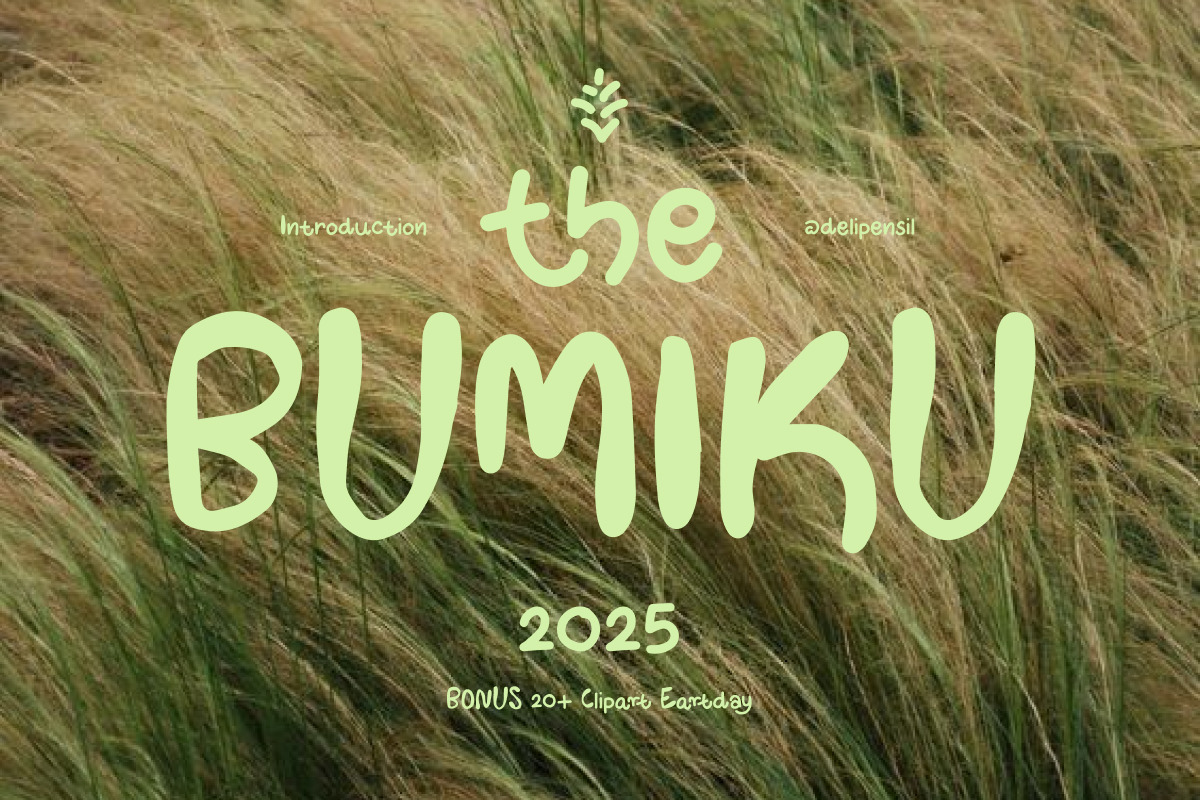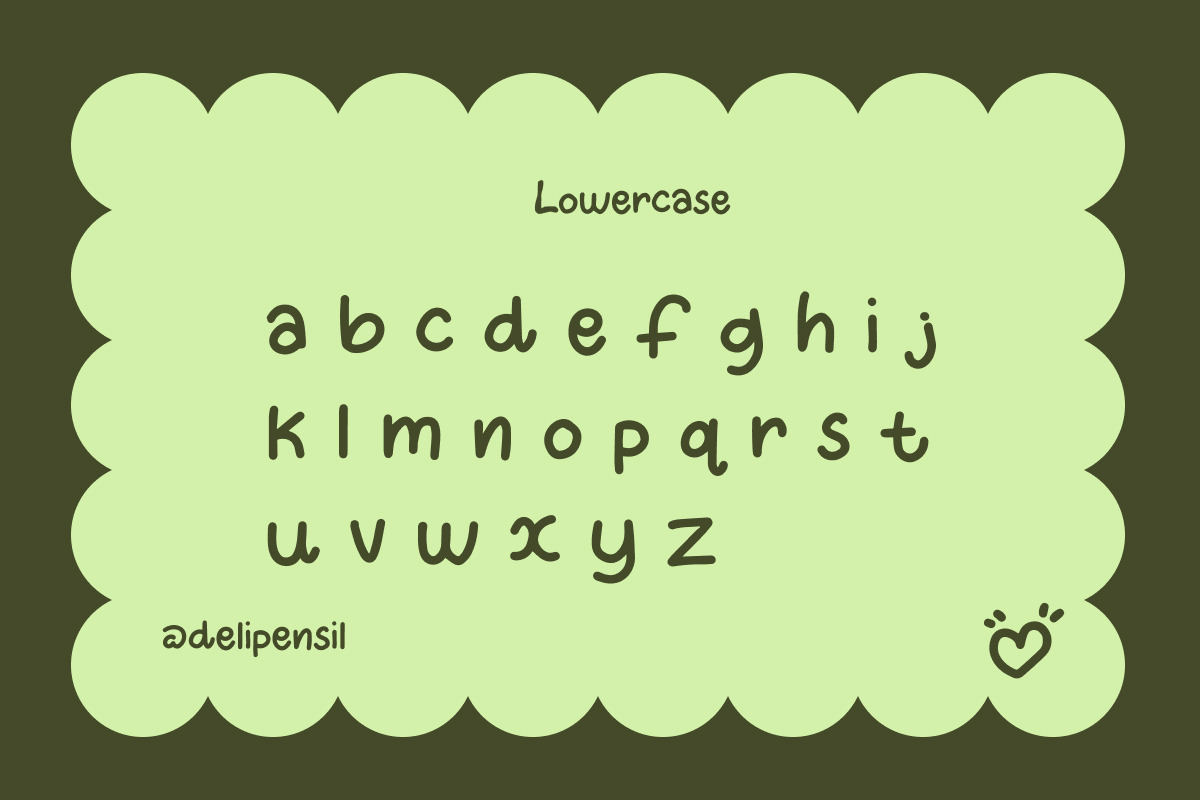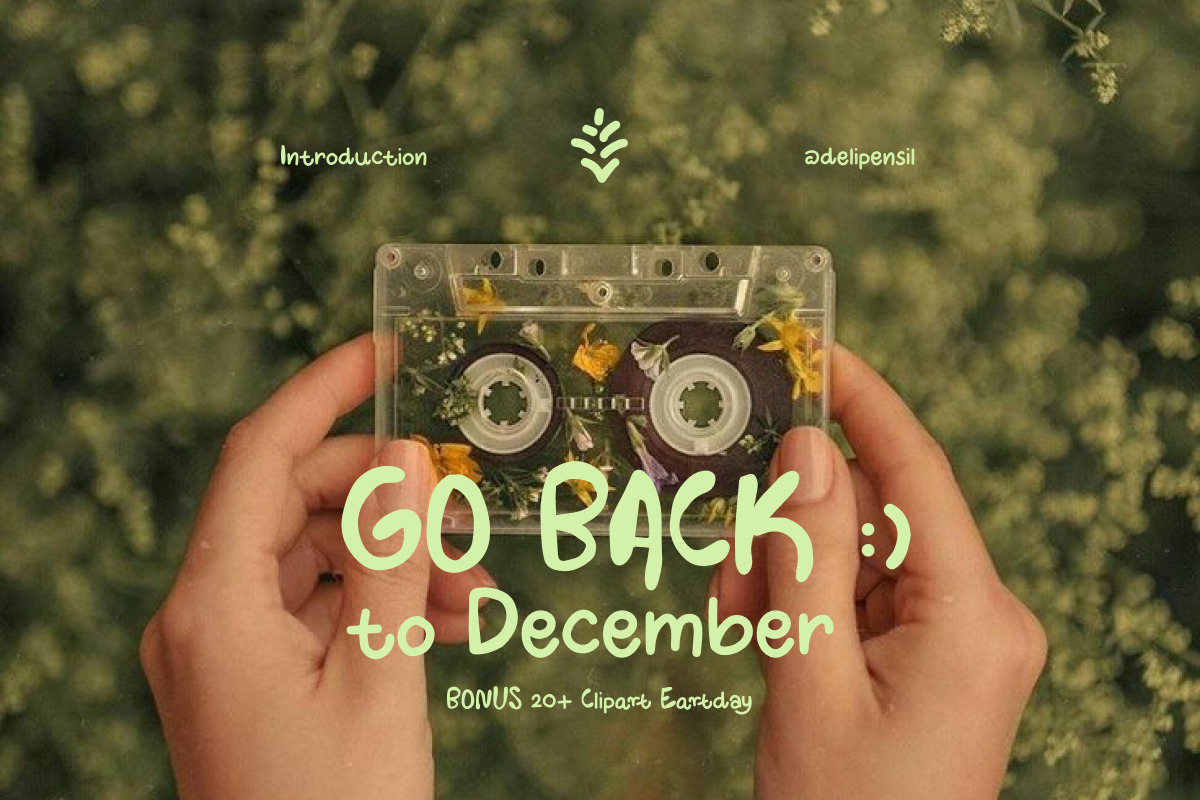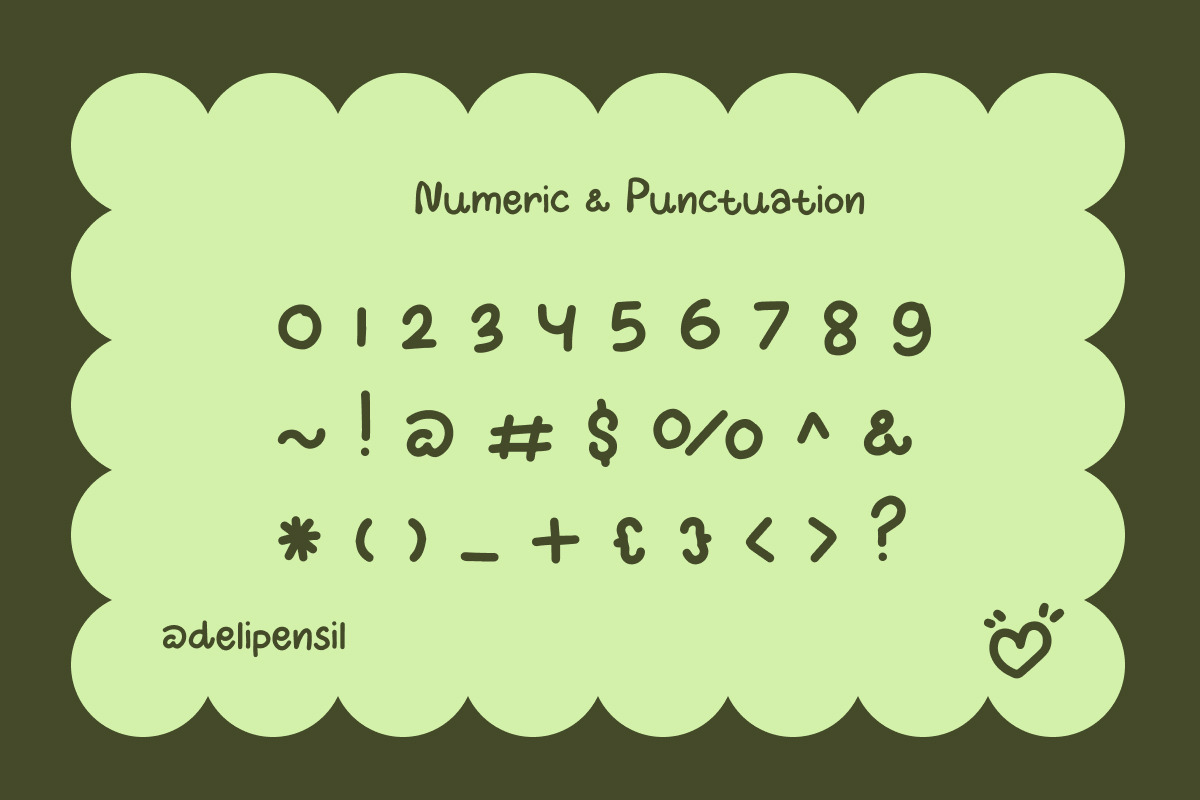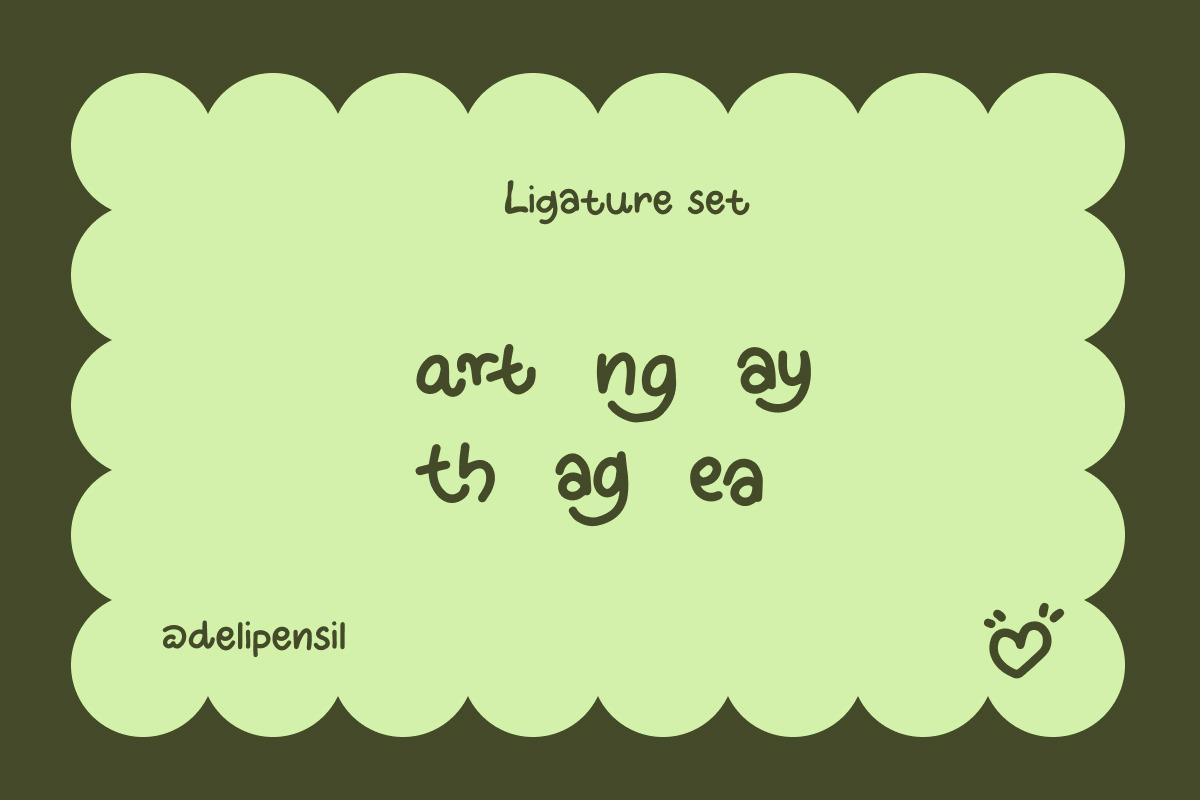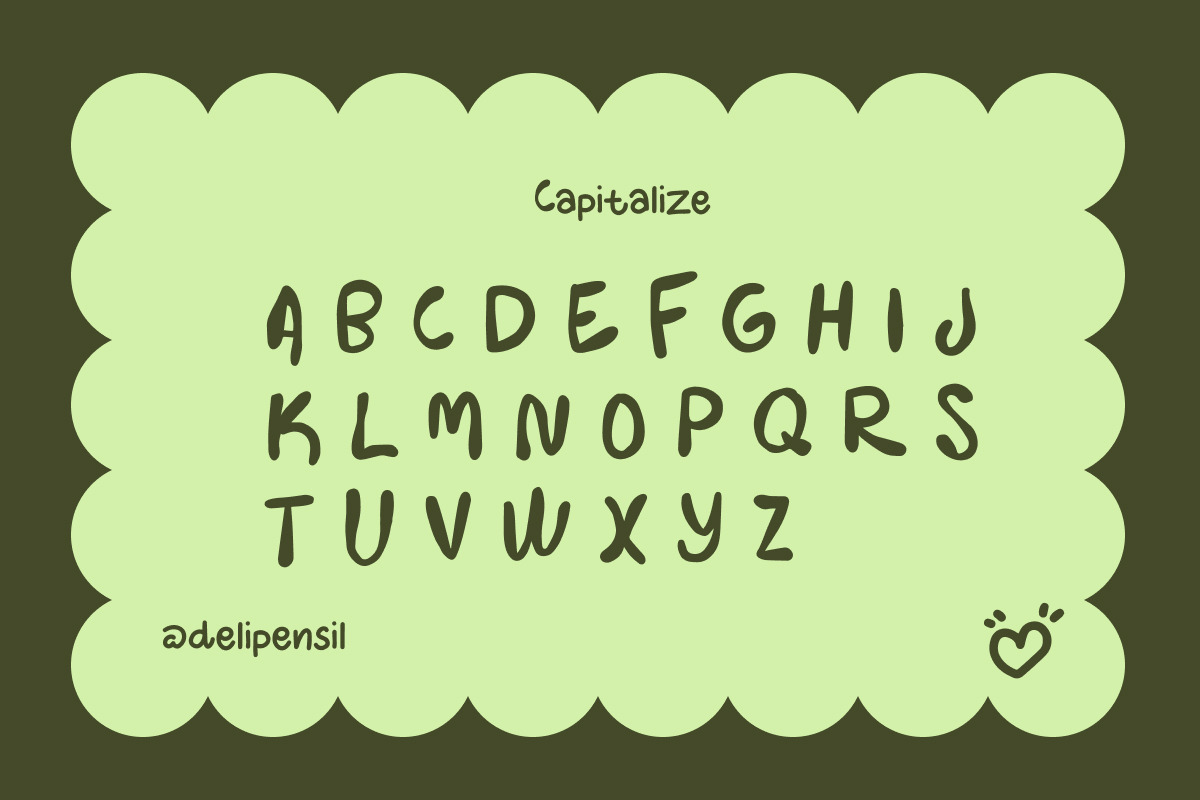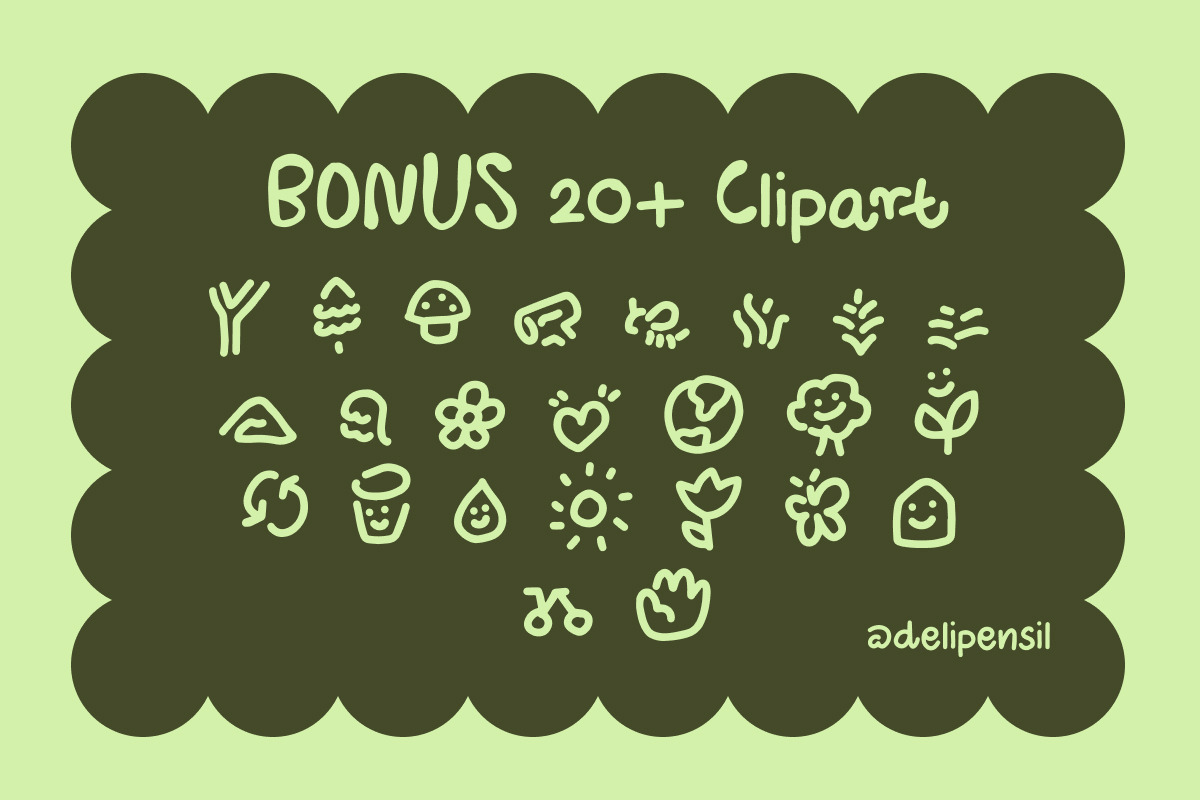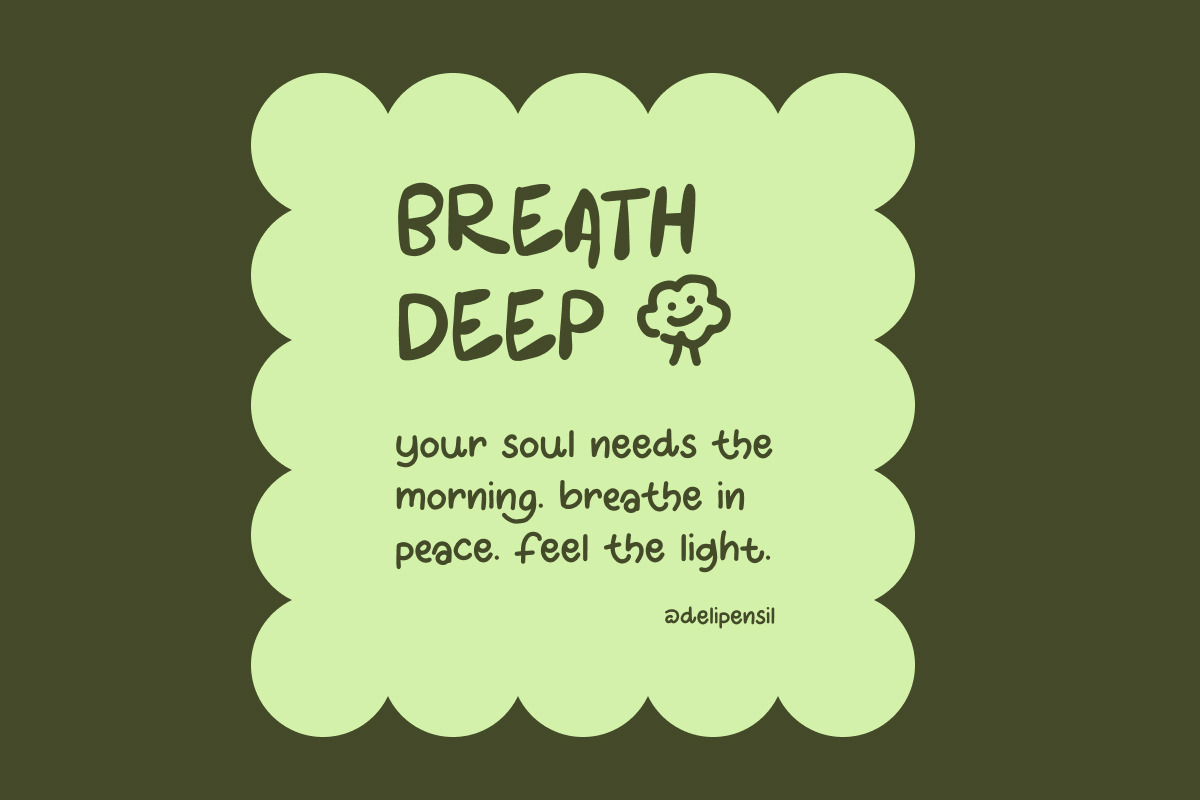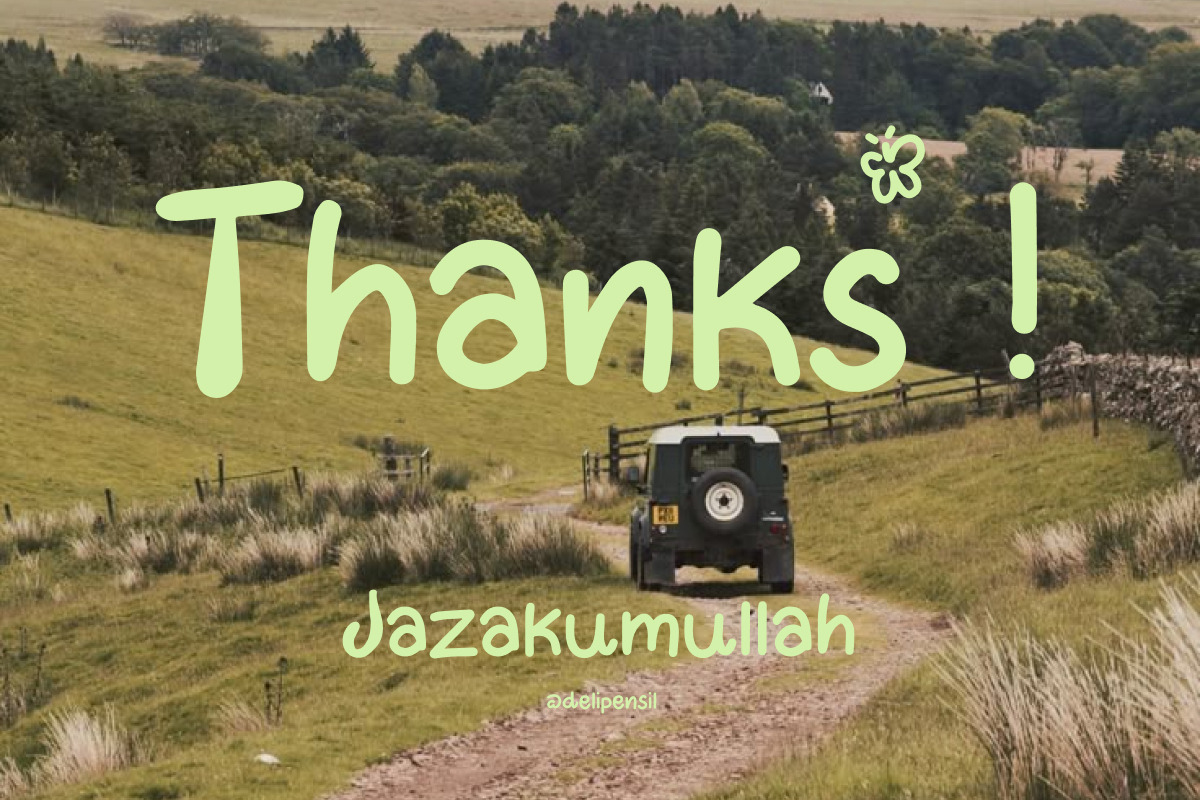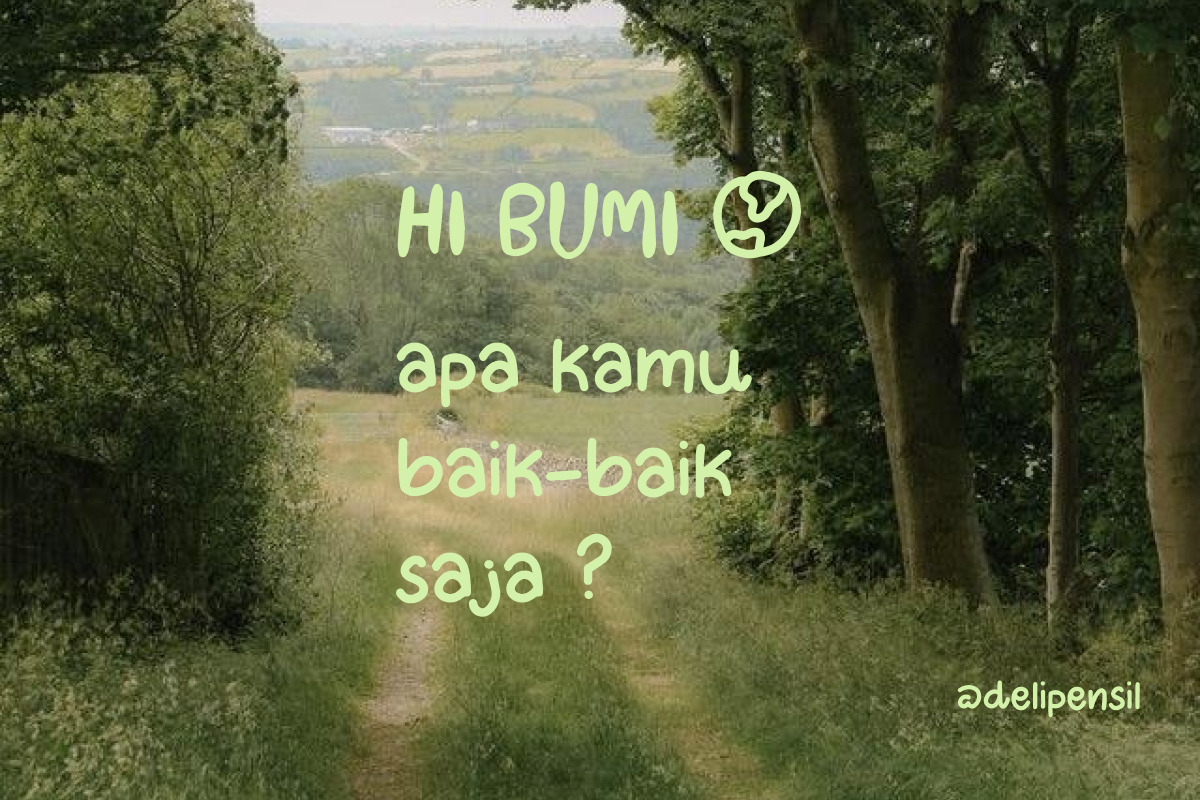
Bumiku - Handwritten Nature Typeface
Bismillah, Introducing ✨ Bumiku – A Handwritten Nature-Inspired Typeface
BONUS 20+ Clipart Earthday Bumiku is a soft and organic handwritten font inspired by the calmness of nature. It brings a touch of warmth, simplicity, and mindfulness into every stroke—like a note written under a tree, or a message carried by the wind.
This font is perfect for anything that wants to feel natural, gentle, and personal—whether it's a logo, eco-friendly brand, product packaging, journal covers, social media posts, or Earth Day campaigns 🌿
- Bumiku Ligature
- Bumiku Numeral & Punctuation
- Bumiku Kerning Style
- Bumiku 2 Styles Include
- BONUS 20+ Clipart Earthday